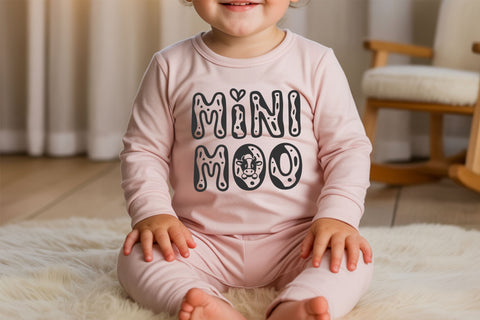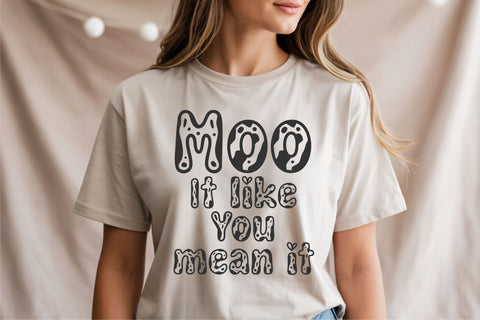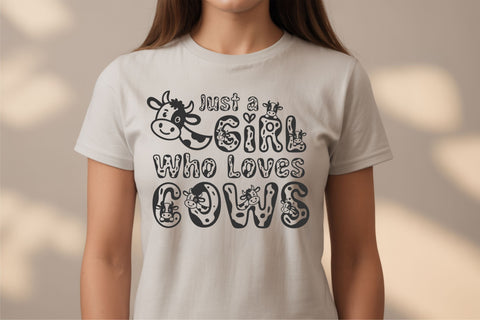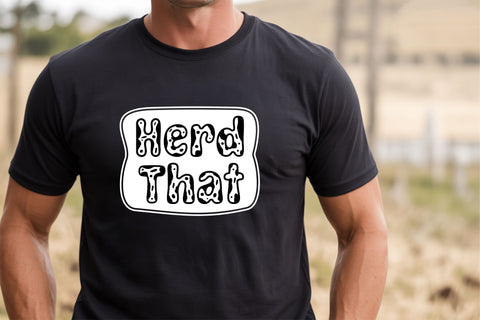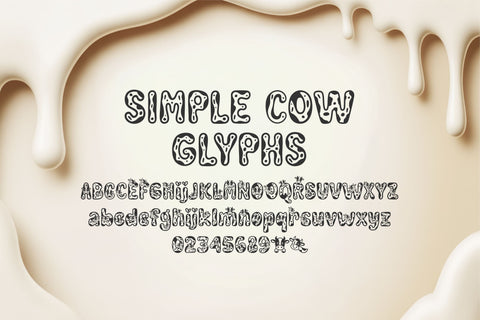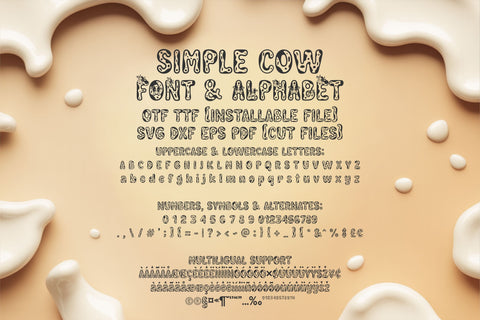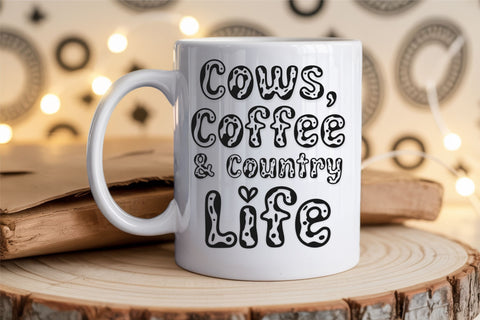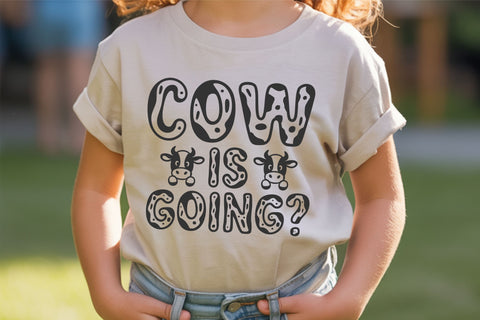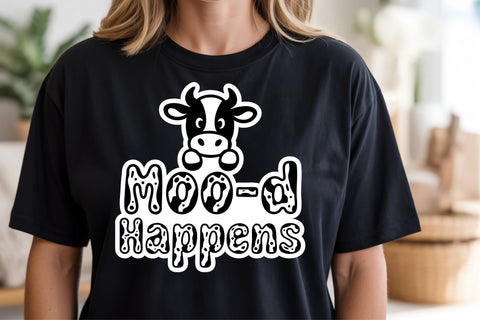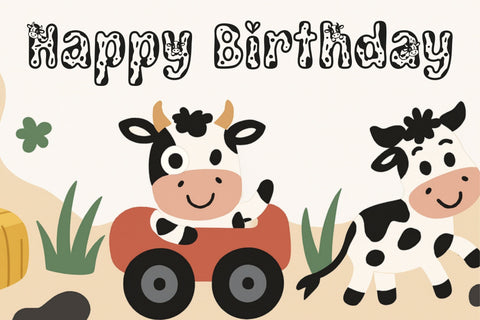
Simple Cow Font | Cute Cow Font with Farm Animals
Simple Cow is a fun, bold cow-print display font designed to bring smiles to crafters of all ages! Each letter is packed with playful charm, featuring hand-drawn cow spots and cartoon-style cows that make this font perfect for kids and adults alike. Use it for baby onesies, birthday shirts, nursery prints, farm party invitations, mugs, stickers, classroom crafts, and more.
Let your imagination graze wild with a font that's udderly unique and ready for fun!